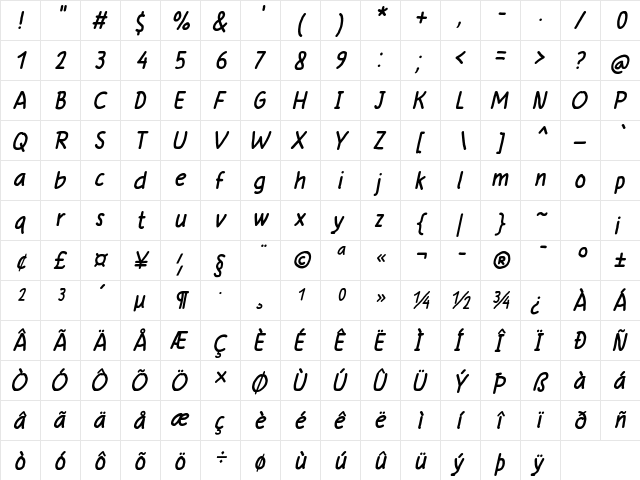
Anysome Italic
| Designer | Situjuh Nazara |
Design Context for Anysome Typeface
Anysome is a composed and adaptable typeface that performs quietly and consistently across a wide range of design contexts. The dynamic lean of this cut emphasises speed and emphasis in any layout.
Pro Tip: Try Anysome for annotation and caption copy alongside an upright companion — the contrast in angle creates a dynamic but ordered typographic system.